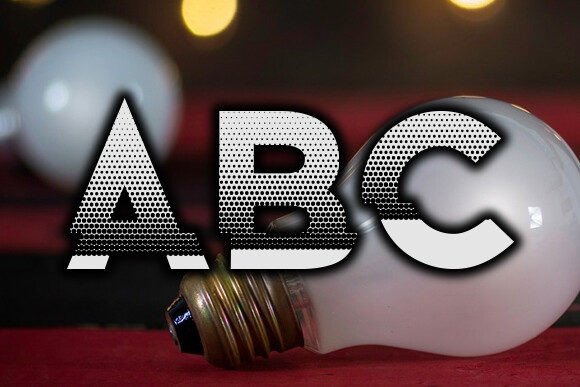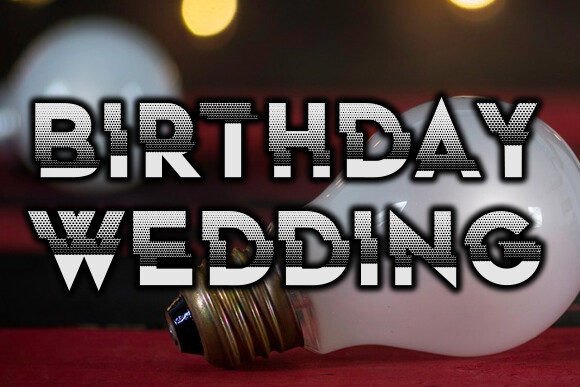
Introduction to Eclairages Font
Have you ever been in the middle of a creative project, staring at a blank canvas or sheet of paper, trying to find the perfect font to bring your idea to life? That’s exactly where I was when I stumbled upon the Eclairages Font. Its stylish and elegant design instantly caught my attention, and I knew I had to learn more about it.
As a designer, having access to high-quality fonts like Eclairages Font can be a game-changer. It’s a valuable resource that can elevate your designs and make them stand out from the crowd. Whether you’re working on a poster, flyer, or even a t-shirt design, this font is sure to add a touch of sophistication and creativity to your project.
Key Features of Eclairages Font
- High-quality design resource ideal for creative projects, offering a unique aesthetic.
- Unique characteristics include intricate details and elegant lines, setting it apart from other fonts in its class.
Honest Review: Eclairages Font
I recently had the opportunity to work with the Eclairages Font, a high-quality design resource that’s perfect for creative projects. As a designer, I appreciate fonts that make a statement, and this one definitely delivers.
- ✨ Unique and stylish design that adds a touch of elegance to any project
- ⚠️ Limited font variations, which may limit its use in certain design scenarios
- ⚠️ Not suitable for use on complex or busy backgrounds, as it may get lost in the design
Overall, I’m impressed with the Eclairages Font. It’s a great choice for designers who want to add a touch of sophistication to their work. While it may have some limitations, its unique design and high-quality images make it a valuable addition to any design resource library. Plus, it’s available for free download, making it a transparent and budget-friendly option for designers.
Eclairages Font
Tips for Getting the Most Out of Eclairages Font
To get the most out of Eclairages Font, experiment with different font sizes, colors, and combinations to create unique and eye-catching designs. You can also use it in conjunction with other design elements, such as graphics and images, to add depth and visual interest to your project.
Eclairages Font is perfect for a variety of creative projects, including logos, business cards, brochures, and more. Its high-quality design and transparent background make it easy to use in a range of applications, from print to digital.